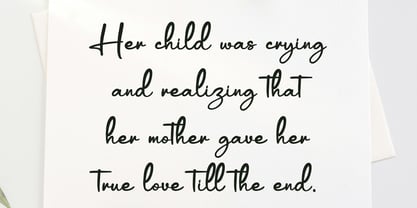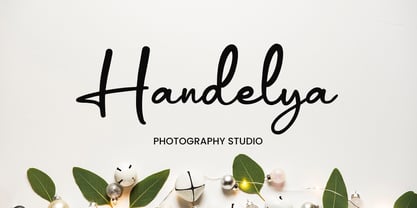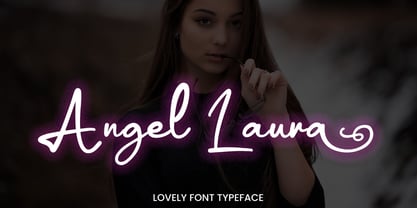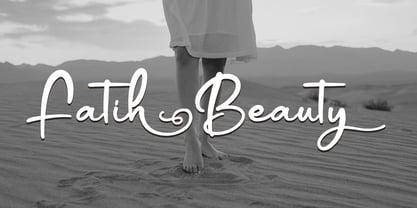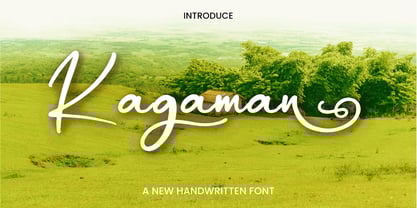
Kagaman
by Ayska
The Kagaman Font Family was designed by Dhoni Trihatmoko and published by Ayska. Kagaman contains 1 styles. More about this family
Introducing Kagaman, a beautifully crafted handwriting script embedded with an array of ligatures, aimed at infusing an authentic, organic feel into your projects. With its vast range of applications, Kagaman effortlessly enhances quotes, elevates branding aesthetics, and adds romantic elegance to wedding invitations. Epitomizing modern, minimalistic design, Kagaman exudes a timeless elegance without compromising on readability. This stylish, eye-catching script is intuitive and easy to use, poised to elevate your work to unparalleled heights. Experience the sophistication of Kagaman, your partner in crafting excellence!